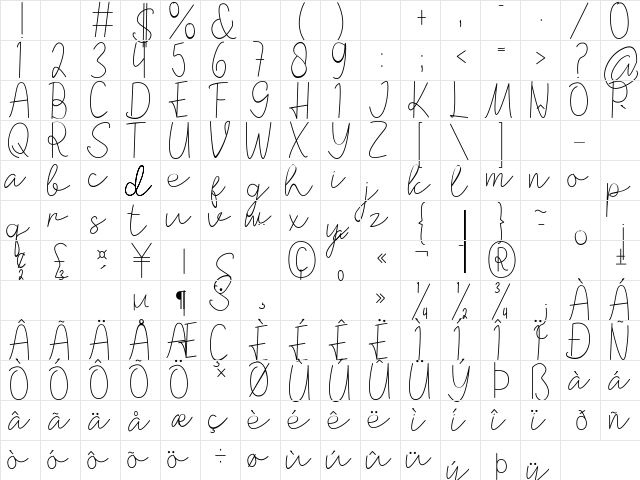
Zinnya Regular
Design Context for Zinnya Typeface
Zinnya is a composed and adaptable typeface that performs quietly and consistently across a wide range of design contexts.